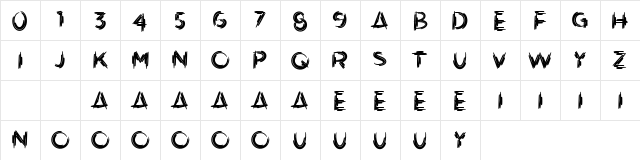
Complete Artistik Demo Versio Regular glyph index. Displaying only characters natively supported by Artistik Demo Versio Regular font.
Artistik Demo Versio is a composed and adaptable typeface that performs quietly and consistently across a wide range of design contexts.